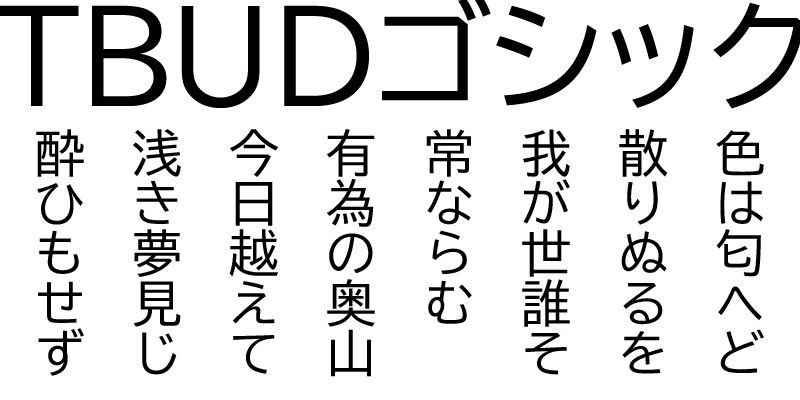
TypeBank UD Gothic is a universal design san serif that ensures both legibility and design quality. In order to make the kanji more clear and identifiable, the letterforms are simplified by omitting hane (hook) and geta (the vertical lines extending beyond horizontal strokes at the bottom of kanji). The face is widened by adjusting counters and other spaces to maintain the balance of each character’s shape. The kana are made slightly smaller than the kanji to give a good rhythm and flow when setting long texts in the lighter weights.